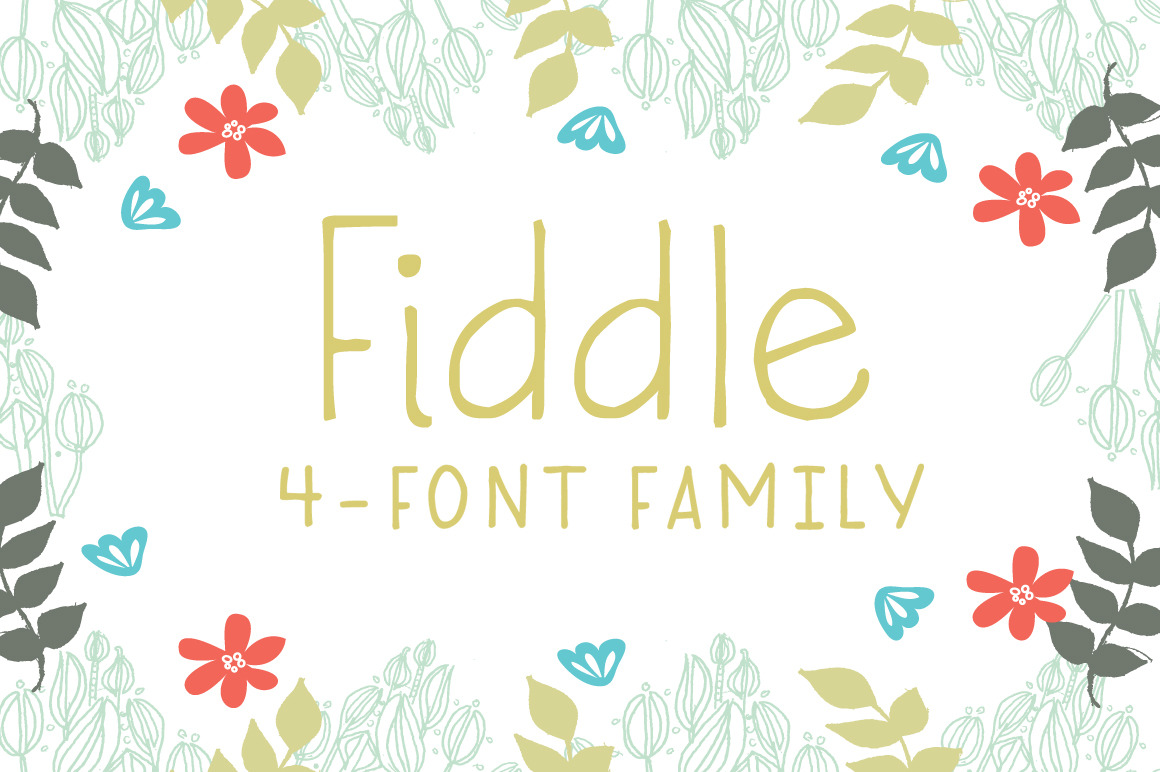
Fiddle 4-Font Family
Fiddle is a musical & folksy hand-written typeface that comes as a 4-font family. The download package comes with 4 .TTF font files.